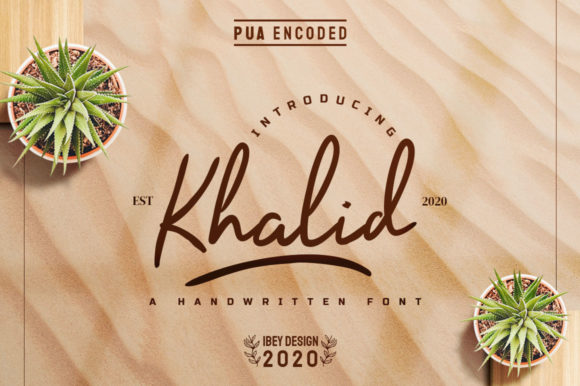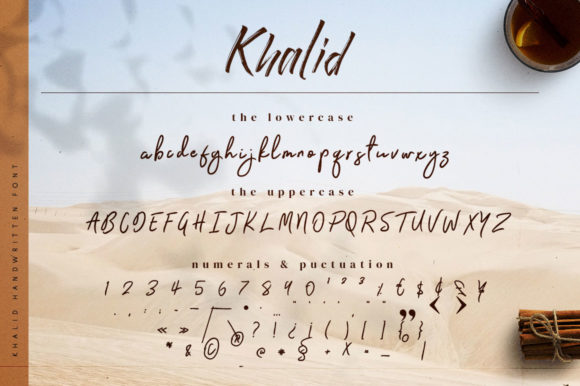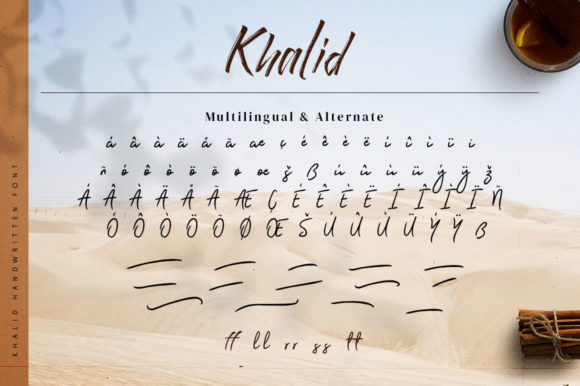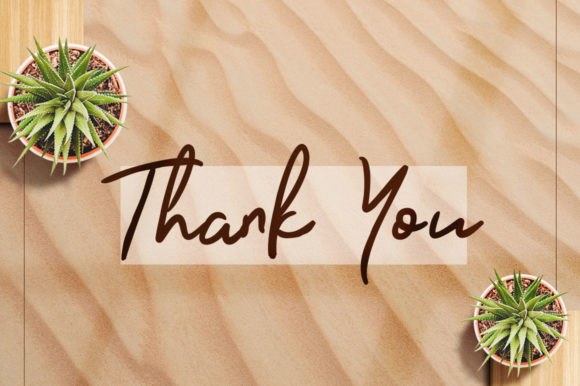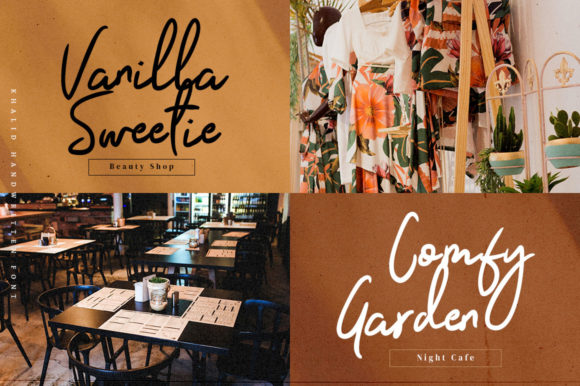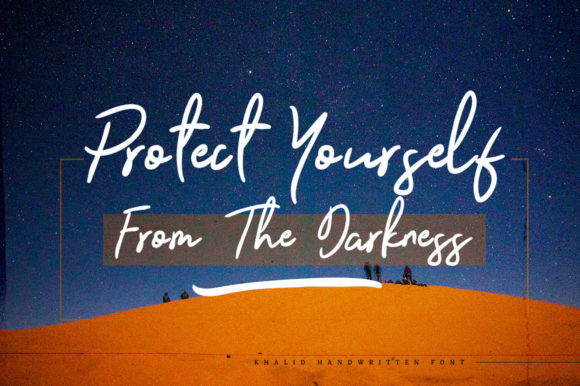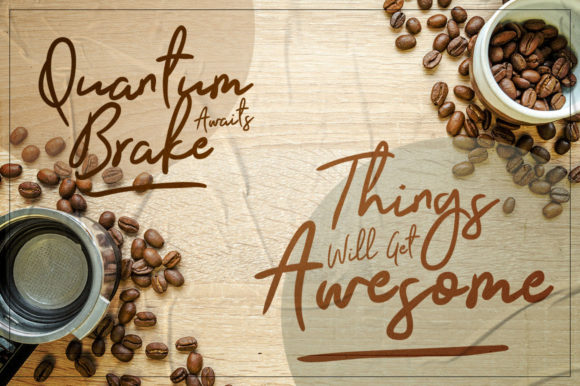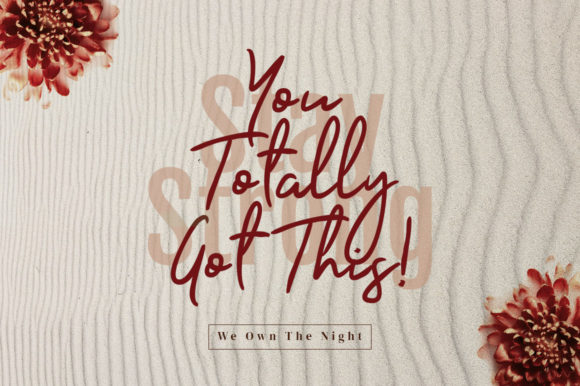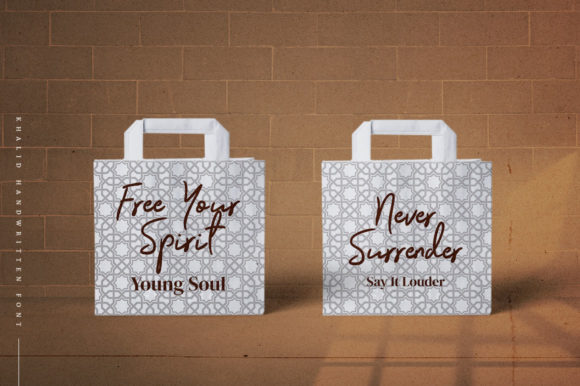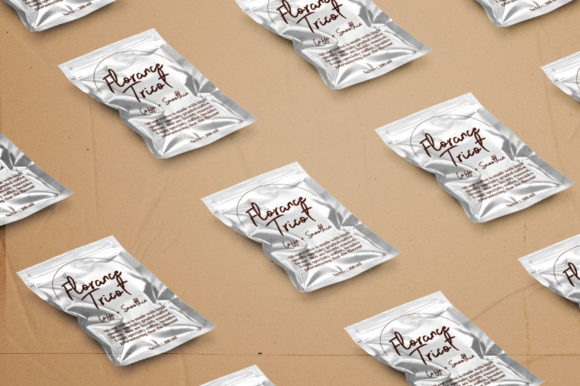
Khalid Font
About Khalid Font
The Khalid is a luxurious handwritten font. It has a modern style and comes in a regular and swash version which gives you the opportunity to create multiple unique designs.